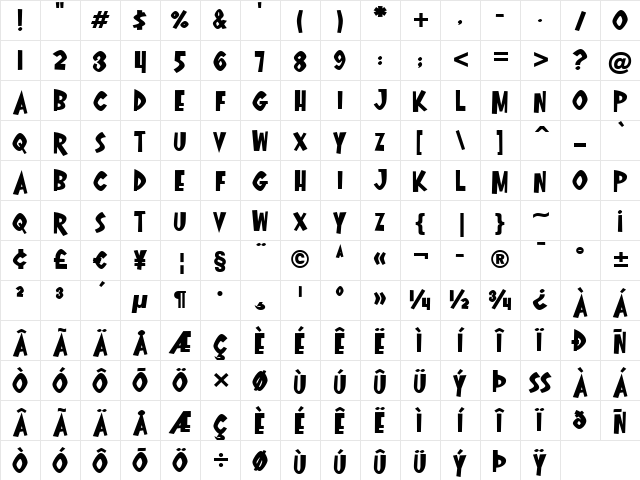
Complete Oyster Bar BTN Exp Bold Regular glyph index. Displaying only characters natively supported by Oyster Bar BTN Exp Bold Regular font.
Oyster Bar BTN Exp Bold is a composed and adaptable typeface that performs quietly and consistently across a wide range of design contexts. Its bold stroke weight gives it real presence on the page.